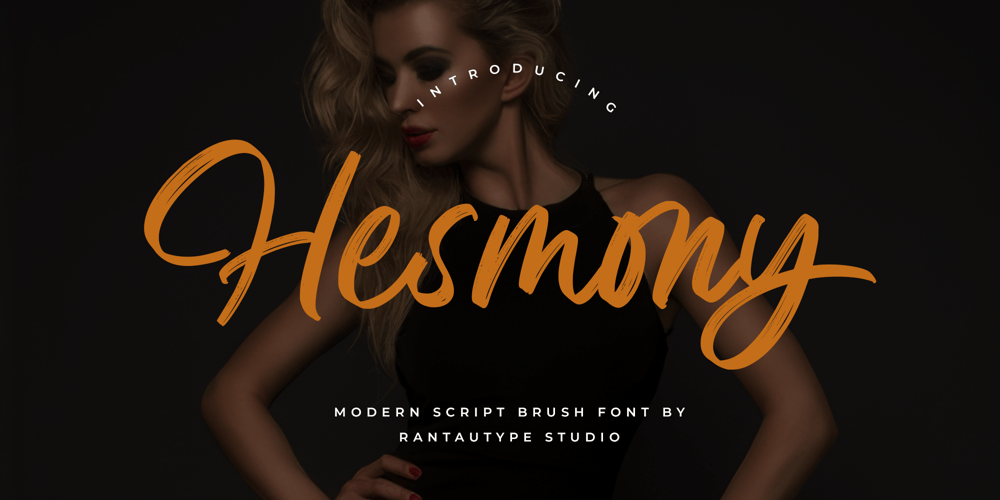
Hesmony Font Family was designed by Yudi Pratama Chandra and published by RantauType. Hesmony contains 1 styles and family package options. Hesmony is modern brush script font with classy and elegant look. Hesmony bring sophisticated of beautiful brush to elevate you design project.Hesmony is a perfectly choice for any creative endeavor, chic, lifestyle design such as logos, advertisements, watermark on photography, stationery, branding project, display and magazine, invitation, corporate brand, product design, label, business project and other project with handwritten taste.What you have: Standart Glyphs Numberial and Functional Ligature and alternate Works on PC & Mac Simple installations Accessible in Adobe Illustrator, Adobe Photoshop, Adobe InDesign, even work on Microsoft Word. Fonts include multilingual support for: Afrikaans, Albanian, Basque, Bemba, Bena, Breton, Catalan, Chiga, Cornish, Danish, Dutch, English, Estonian, Filipino, Finnish, French, Galician, German, Icelandic, Indonesian, Irish, Italian, Kinyarwanda, Luxembourgish, North, Norwegian, Portuguese, Romansh, Rombo, Rundi, Scottish, Gaelic, Sena, Shambala, Shona, Soga, Somali, Spanish, Swahili, Swedish, Swiss, German.Thank you for your purchase!Hope you enjoy with our font!